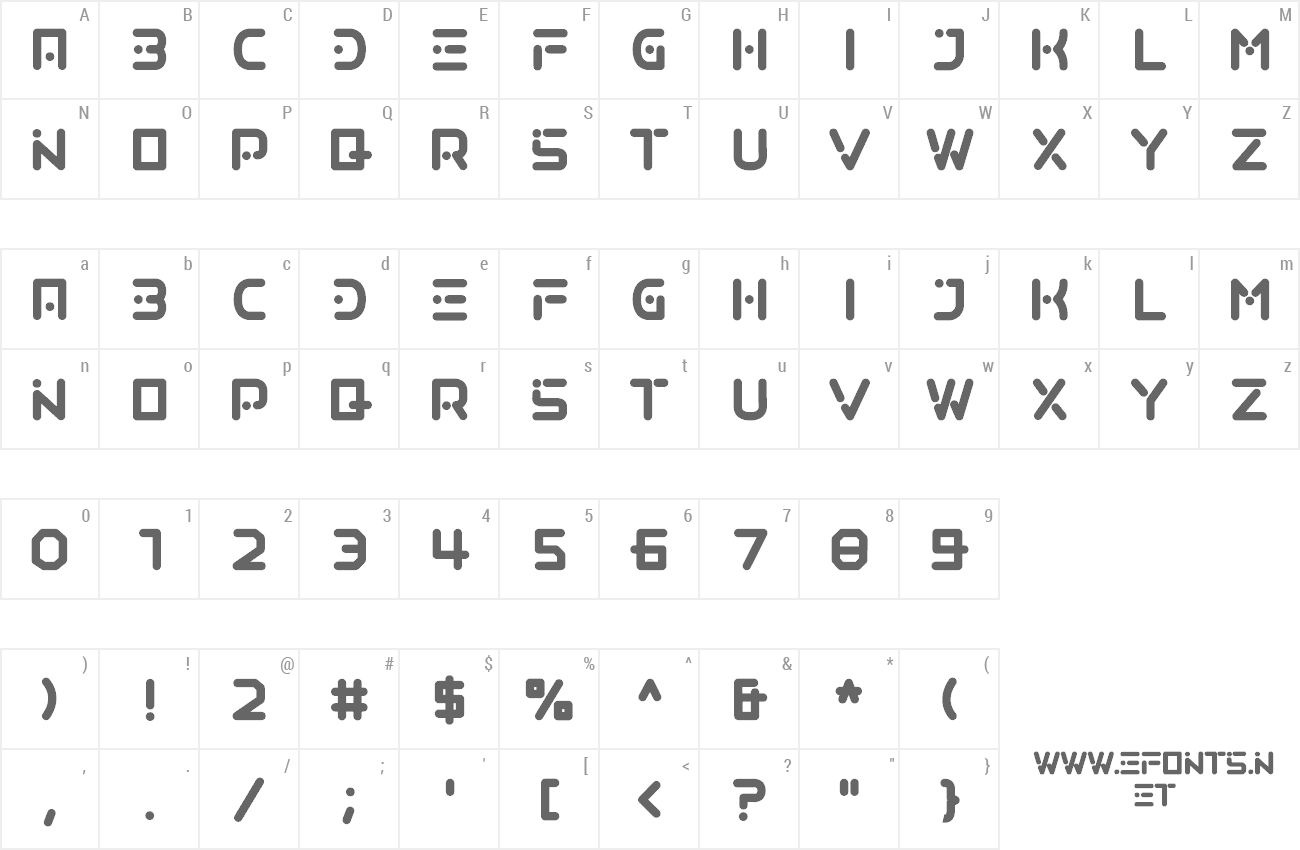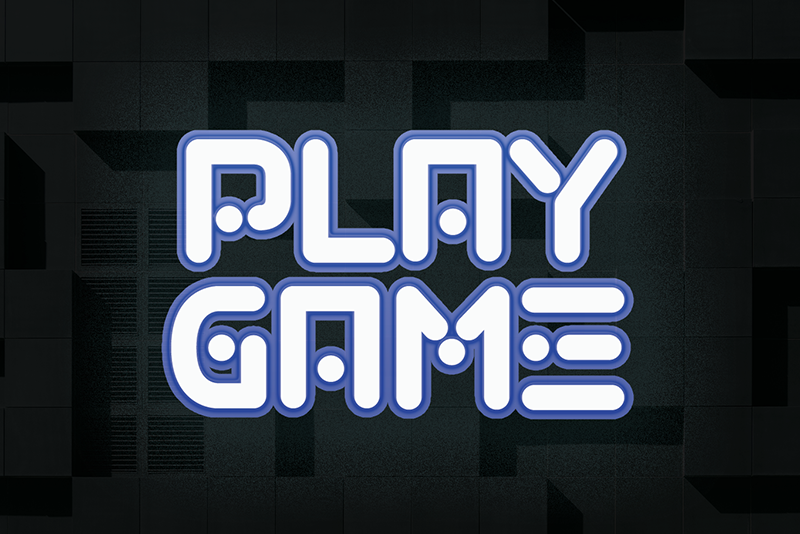
Preview and download Play Game Font. Created by Erik Luluk in Techno Sci-fi styles with Free for personal use license.
Play Game is a bold and cool display font that looks so modern and futuristic. Add this neon font to your creative ideas, and notice how it makes them stand out! Attention : Play Game is a bold and cool display font is prohibited to use this font for commercial purposes or for profit without the permission of the author/admin, without being known to use this font without permission, will be subject to sanctions 5x the specified price. This font is used only for demos (Demo license) If you want to use this font for commercial use please contact email: erikluluk0@gmail.com or click the link below: https://www.creativefabrica.com/product/play-game-4/ref/745146/ If you want to see more other fonts, please click: https://www.creativefabrica.com/designer/erik-studio/ref/745146/ |